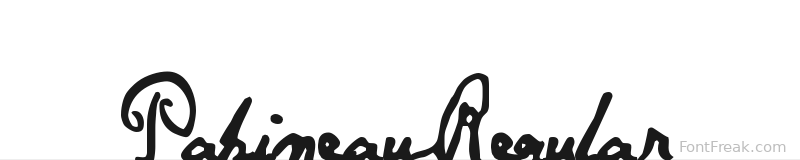
Papineau Regular
Papineau Regular by Cloutierfontes is a distinctive display font that combines elegance with a casual flair, making it a versatile choice for various design projects. This font features a unique handwritten style with smooth, flowing strokes that exude a sense of warmth and approachability. The stroke weight varies, creating a dynamic contrast that draws attention without overwhelming the viewer. The characters are well-spaced, ensuring readability while maintaining a personal touch, making Papineau Regular perfect for both formal and informal settings.
Ideal for use in wedding invitations, this font adds a romantic and personal element to the design, elevating the overall aesthetic. Additionally, it works wonderfully for restaurant menus, where its inviting style can enhance the dining experience. Graphic designers may find Papineau Regular particularly suited for branding projects, as its unique look can help businesses establish a memorable identity. Content creators will appreciate its charm in social media graphics, where it can capture audience attention and convey a sense of authenticity.
Targeted primarily at graphic designers, small business owners, and content creators, Papineau Regular offers a unique solution for those looking to infuse their work with character and creativity. The freeware license allows users to access this font without any cost, making it an attractive option for budget-conscious projects.
What sets Papineau Regular apart is its perfect blend of elegance and approachability, allowing it to shine in a variety of applications. Whether you are crafting an elegant invitation or a vibrant social media post, this font provides the perfect balance of style and readability. Experience the charm and versatility of Papineau Regular font free download today and elevate your design projects.